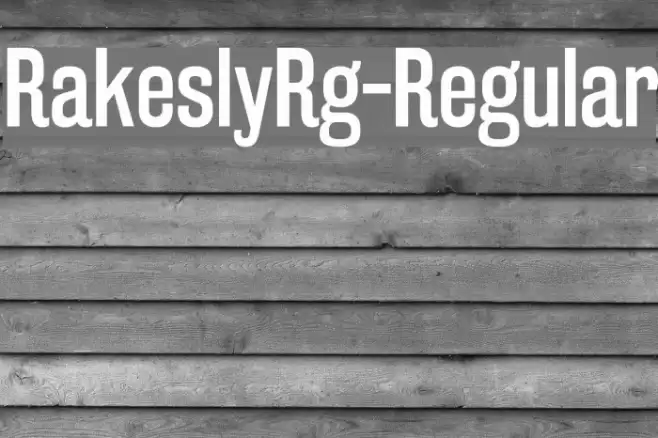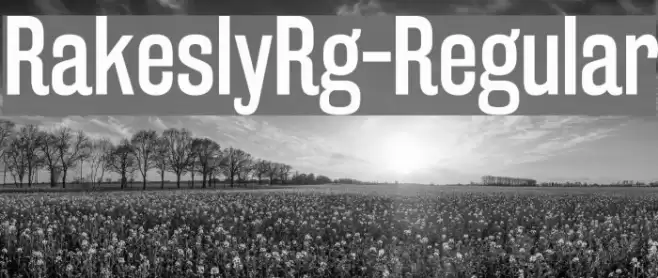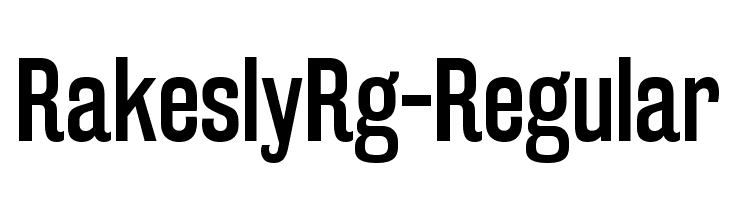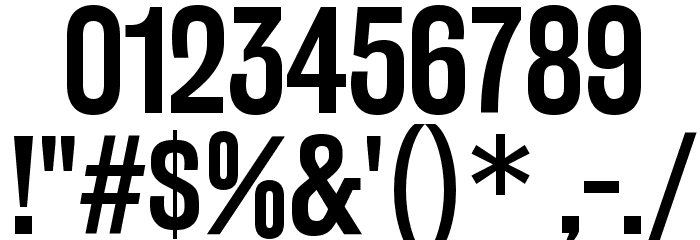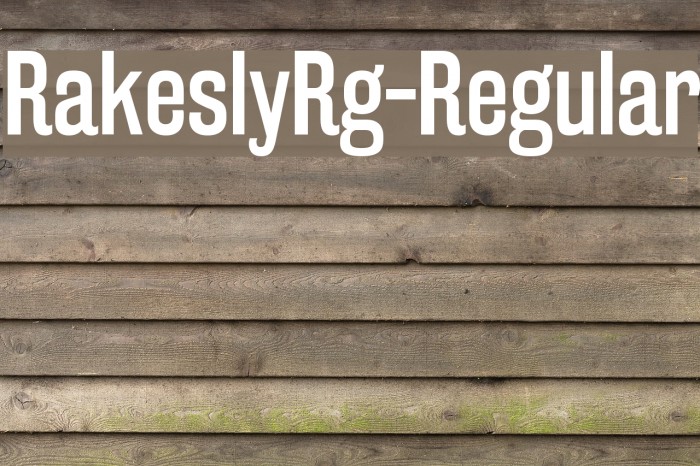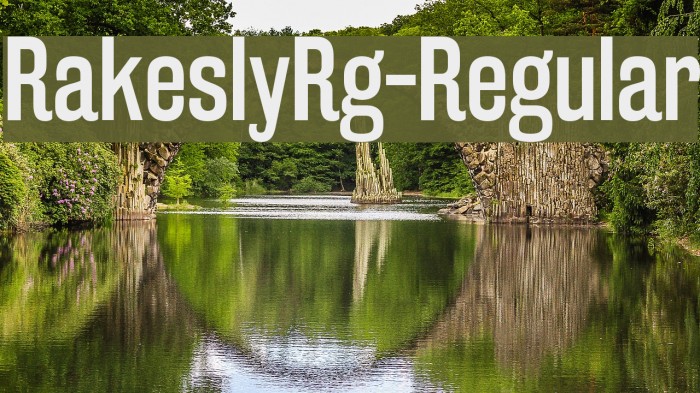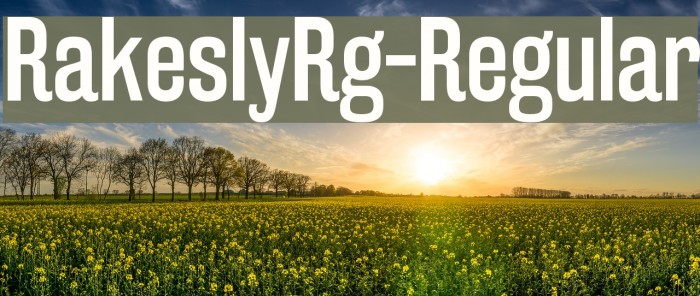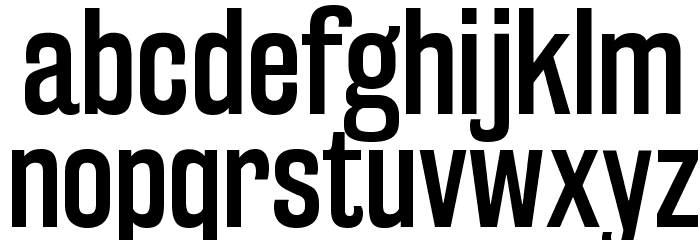
RakeslyRg-Regular Font
RakeslyRg-Regular Description
This font features a bold and modern sans-serif style with clean lines and a strong presence. The uppercase letters are tall and commanding, while the lowercase letters maintain a consistent height, offering a balanced and cohesive look. The numerals are clear and easy to read, making them suitable for various applications. Special characters are well-defined, adding versatility to the font's use. The overall design is straightforward yet impactful, making it ideal for projects that require a contemporary and assertive typeface.
A bold, modern sans-serif font with clean lines and strong presence from Sans Serif fonts.
- Proposed Projects: Ideal for branding, advertising, headlines, and digital media where a modern and bold statement is needed.
- Use Case: Headlines, Logos, Branding